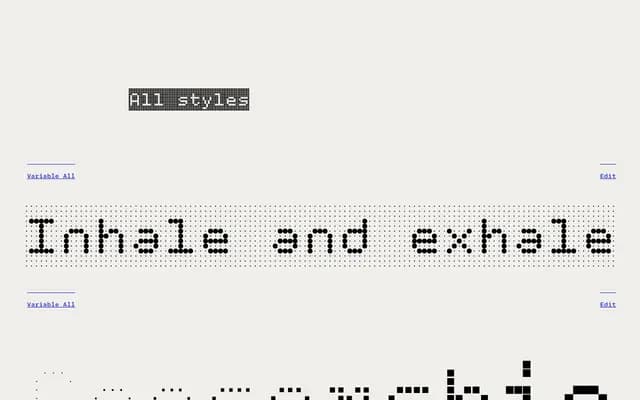
Gridlite PE
Rosetta · David Březina · 2020
A modular, monospaced variable font by David Březina built on a strict grid, where each letter becomes a tiled field of positive and negative shapes that can be animated or deformed across multiple axes.
Designed as a deliberate experiment with modular negative space, the pan-European font covers Latin, Cyrillic and Greek scripts and provides variable axes controlling element size, shape and background envelope. Static styles are offered as packs of six variants per weight, and the family includes small caps, fractions, superscripts and a monospaced elephant ligature. It suits posters, editorial design, digital publishing and motion work where the grid structure is itself the visual content.
A monospaced, variable display typeface built on a strict modular grid with pixel-like construction, placing it firmly in the display category with a modular/pixel subcategory.